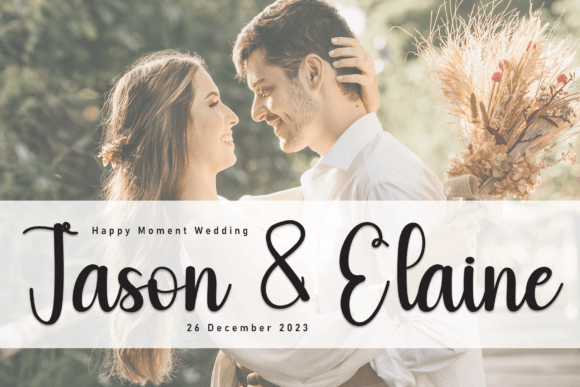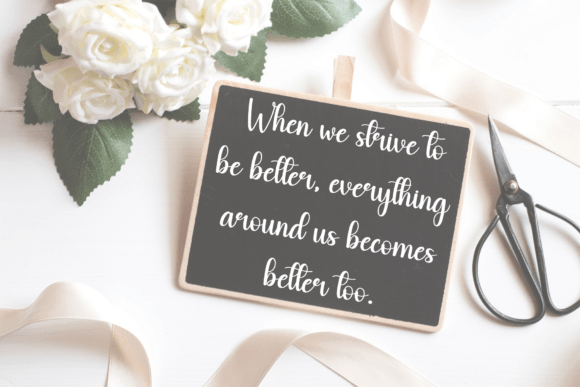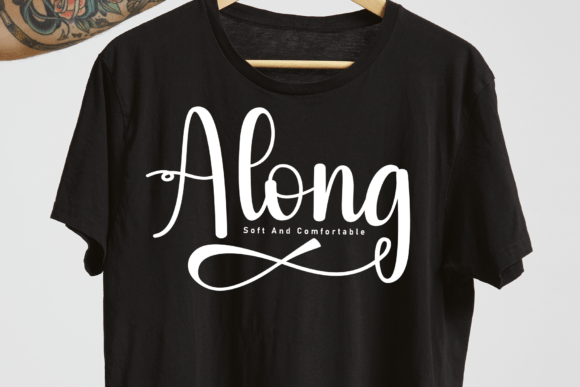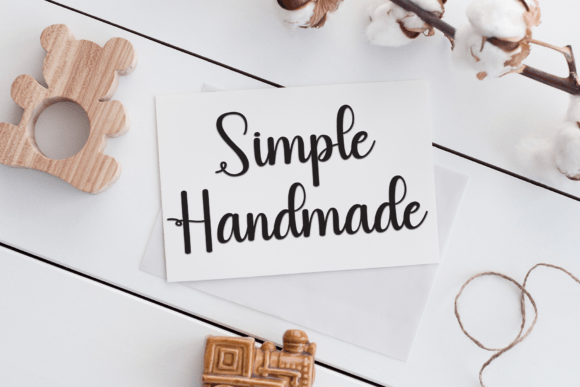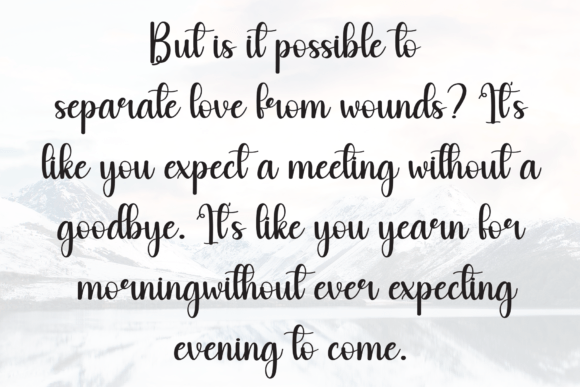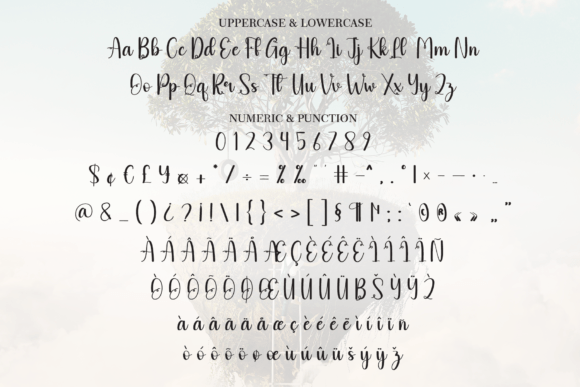
The Magical World of Fantasy Font
Have you ever been working on a design project, and suddenly, you’re stuck on finding the perfect font? I recall a wedding invitation project where I struggled to find a font that was both elegant and playful. That’s when I stumbled upon Fantasy Font, a sweet and friendly handwritten display font that instantly charmed me! In this article, I’ll share my experience with Fantasy Font, its features, and how to make the most of it in your designs.
A Personal Review of Fantasy Font
Fantasy Font is a beautiful, handmade font that adds a touch of whimsy to any design. Here’s what I love about it:
- ✨ Cute and fun: Fantasy Font is perfect for designs that need a playful twist, like wedding invitations, greeting cards, or social media graphics.
- ✅ Elegant yet approachable: This font strikes the perfect balance between sophistication and friendliness, making it ideal for a wide range of design projects.
- 💕 Handwritten charm: The font’s handwritten feel adds a personal touch to your designs, making them more relatable and engaging.
While Fantasy Font is an excellent choice for many designs, there are a few things to keep in mind:
- 🤔 Legibility at small sizes: As with many handwritten fonts, Fantasy Font can become less legible at very small sizes. It’s best used at larger sizes, like headings or titles.
- ⚠️ Limited use in body text: Due to its decorative nature, Fantasy Font might not be the best choice for long blocks of body text. Stick to using it for headings, titles, or short paragraphs.
The Story Behind Fantasy Font
Fantasy Font was created with the intention of bringing a touch of magic to your designs. Its creator aimed to craft a font that was both elegant and approachable, perfect for designs that need a playful twist. While the exact story behind the font’s creation is unknown, it’s clear that Fantasy Font has become a beloved choice among designers and crafters.
- Q: Is Fantasy Font suitable for body text?
- A: While Fantasy Font is beautiful, it’s best used for headings, titles, or short paragraphs. Its decorative nature makes it less suitable for long blocks of body text.
- Q: Does Fantasy Font support OpenType features?
- A: Yes, Fantasy Font supports OpenType features, including glyphs and stylistic alternates. Experiment with these features to add more flair to your designs.